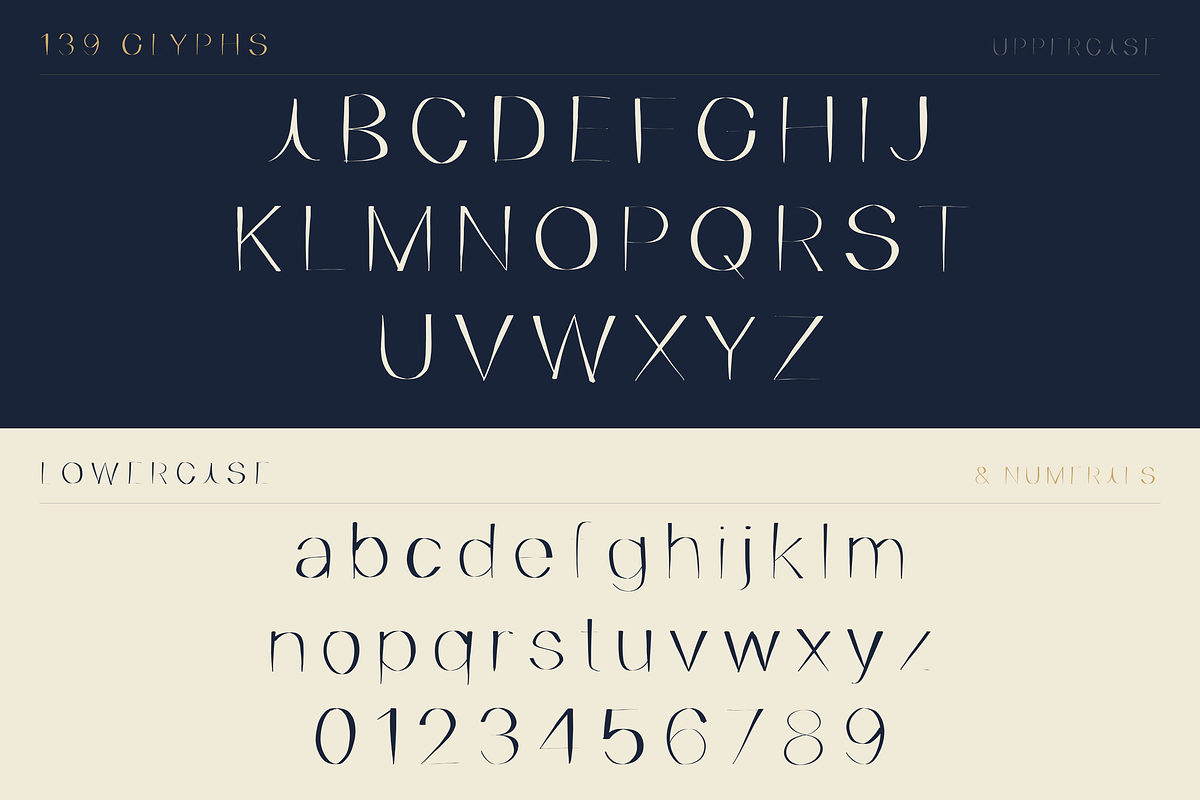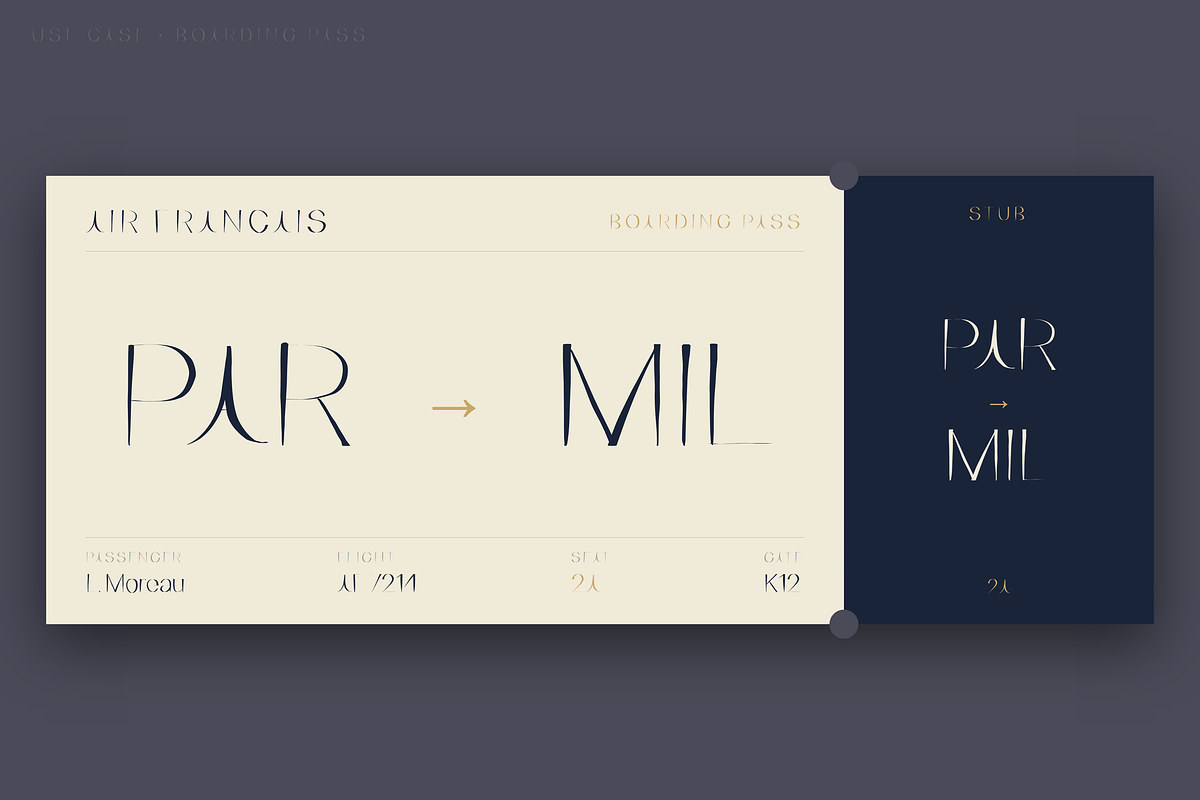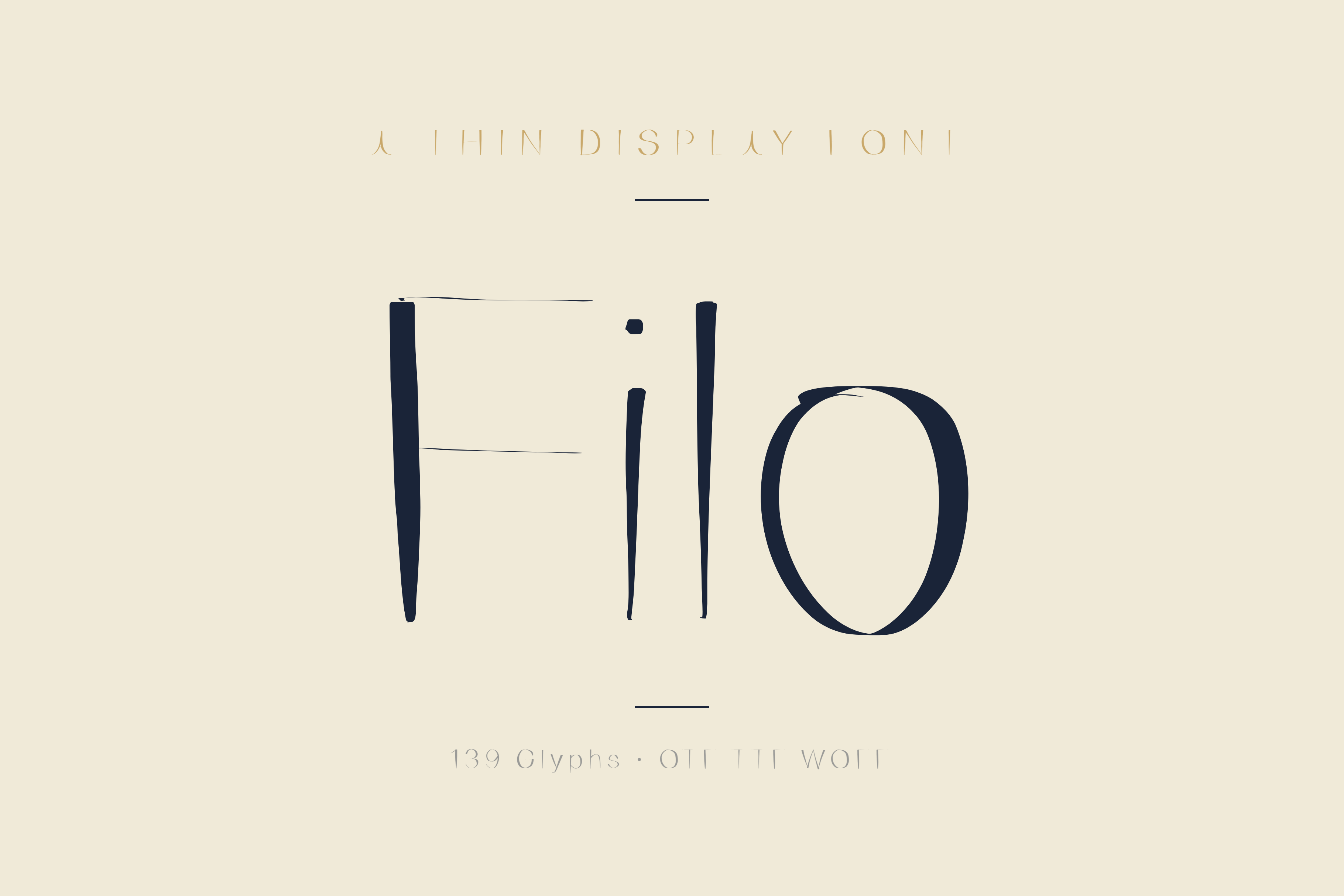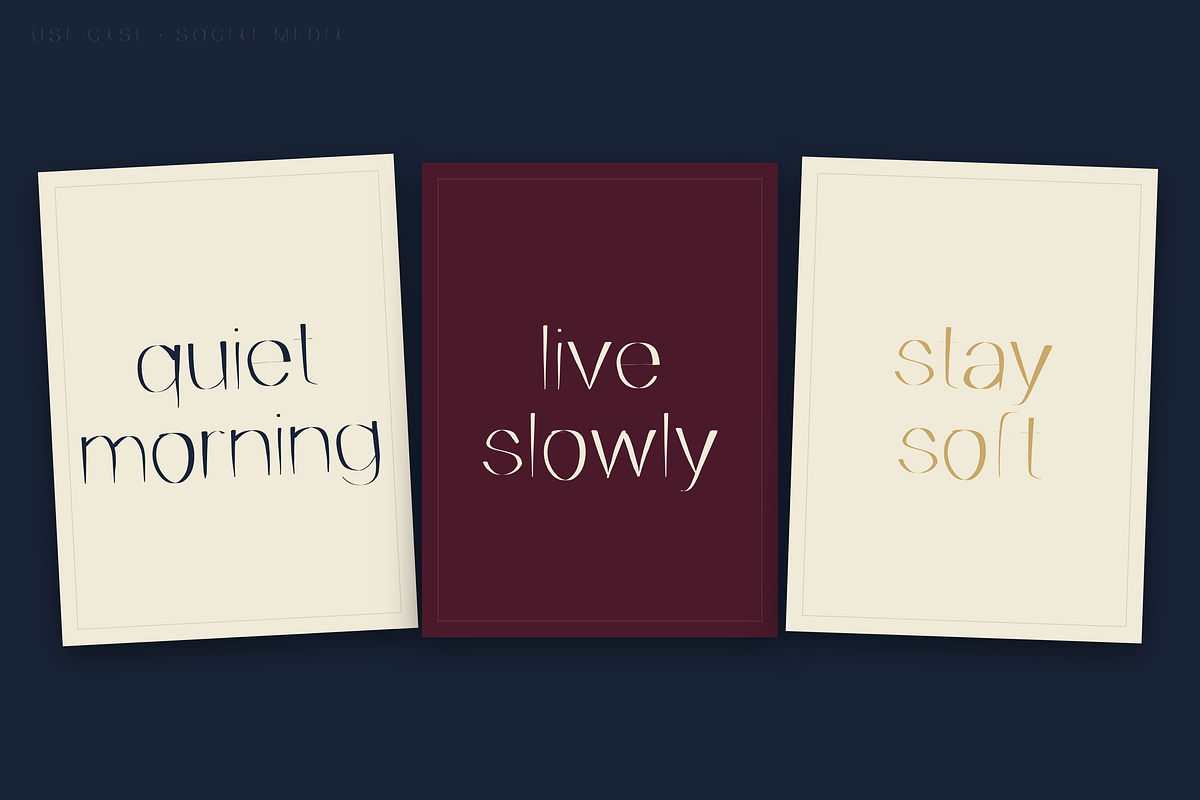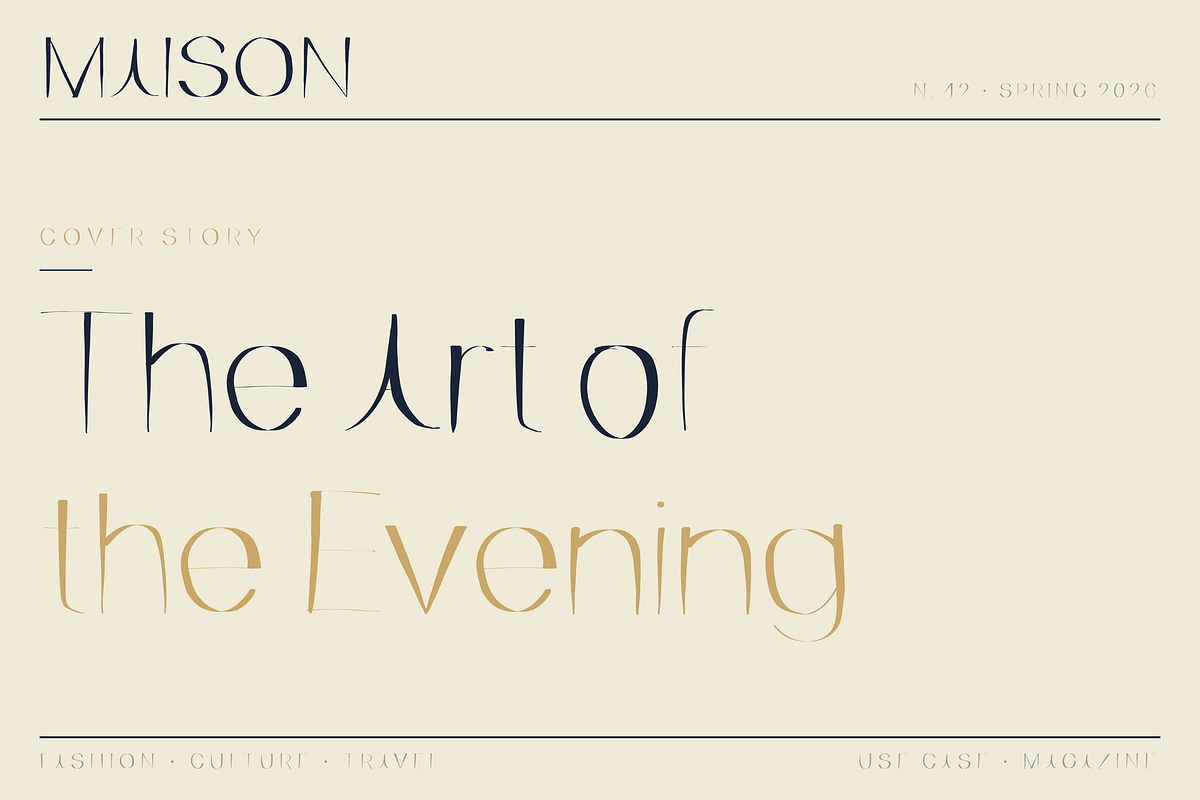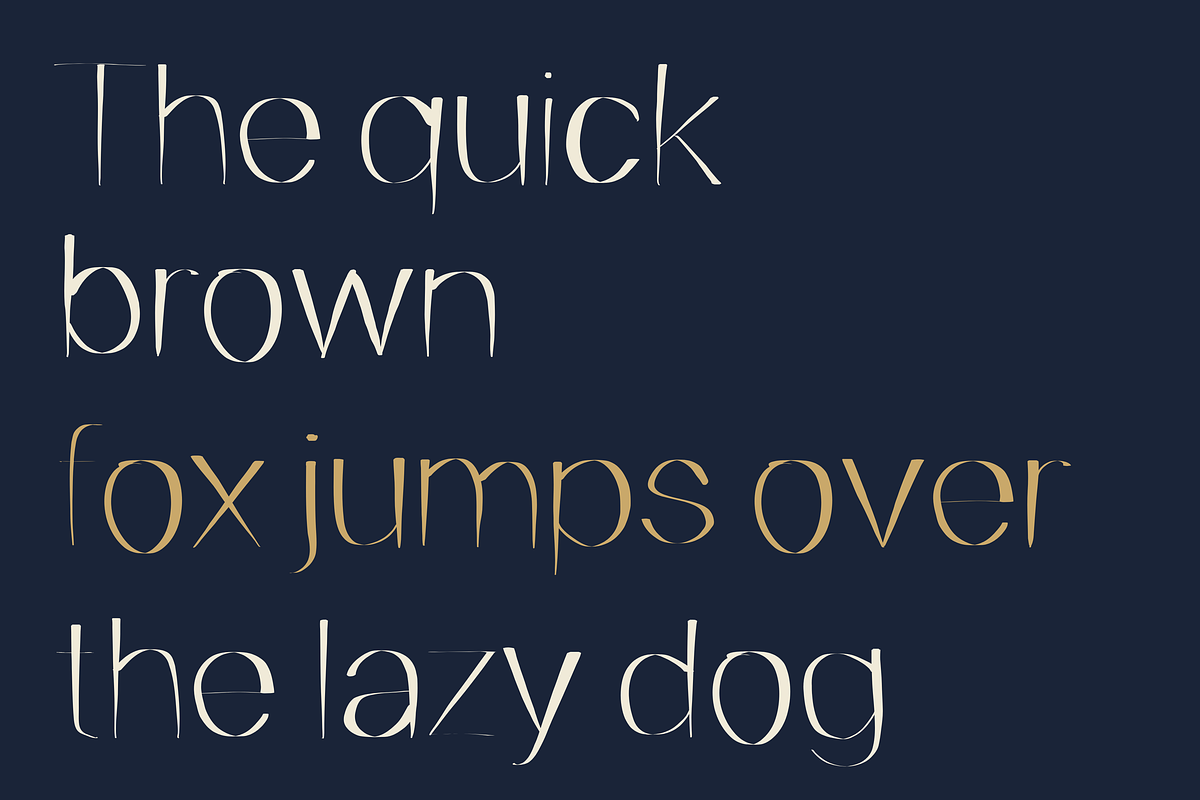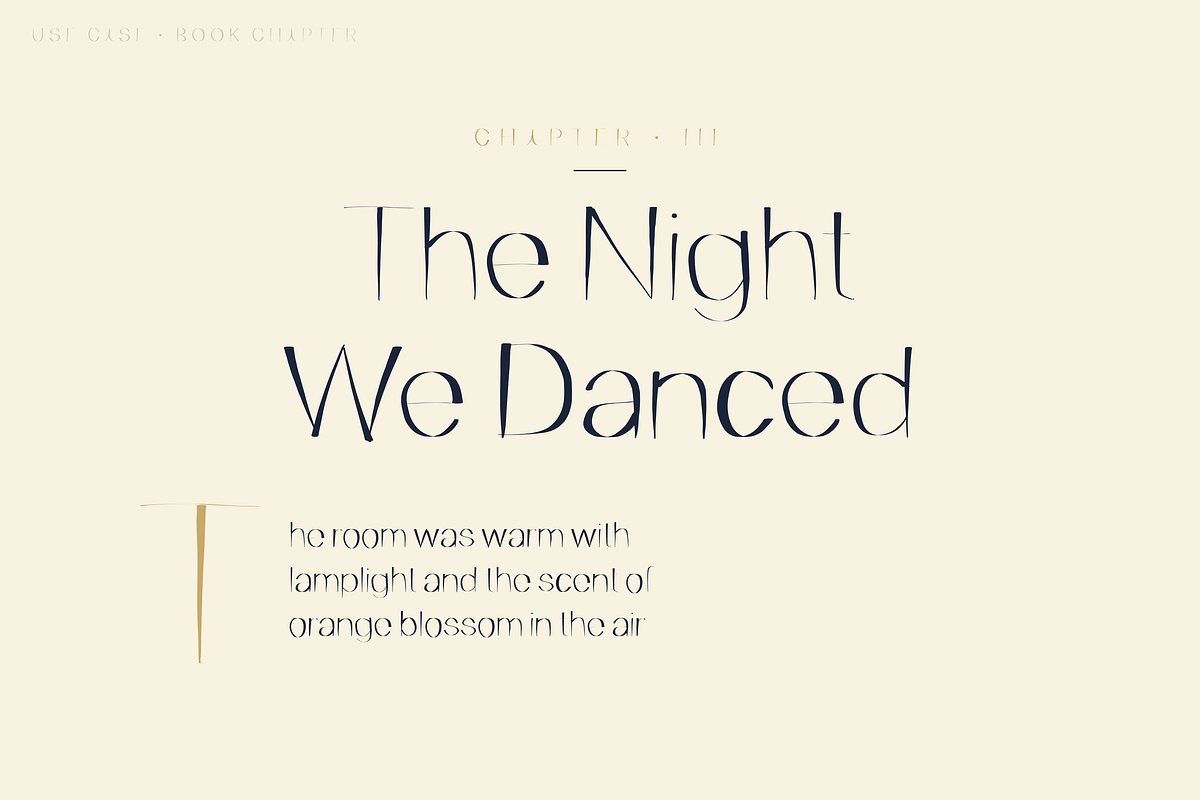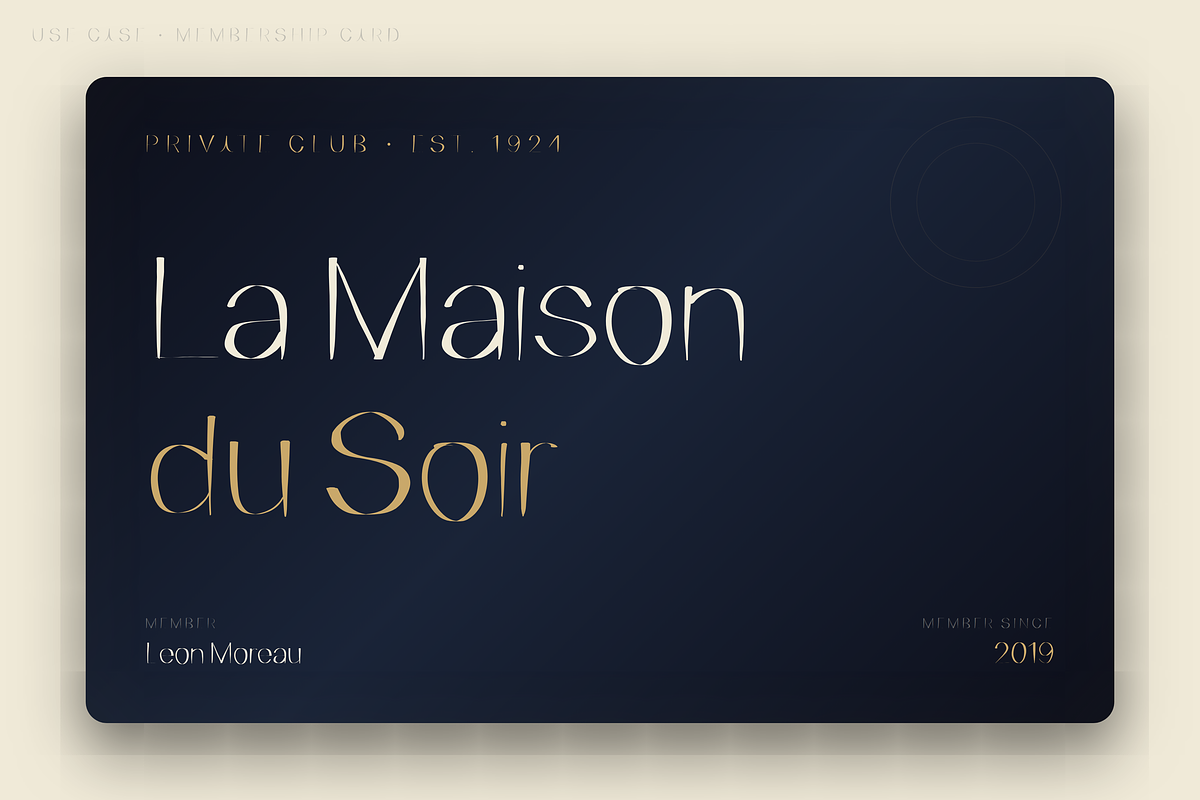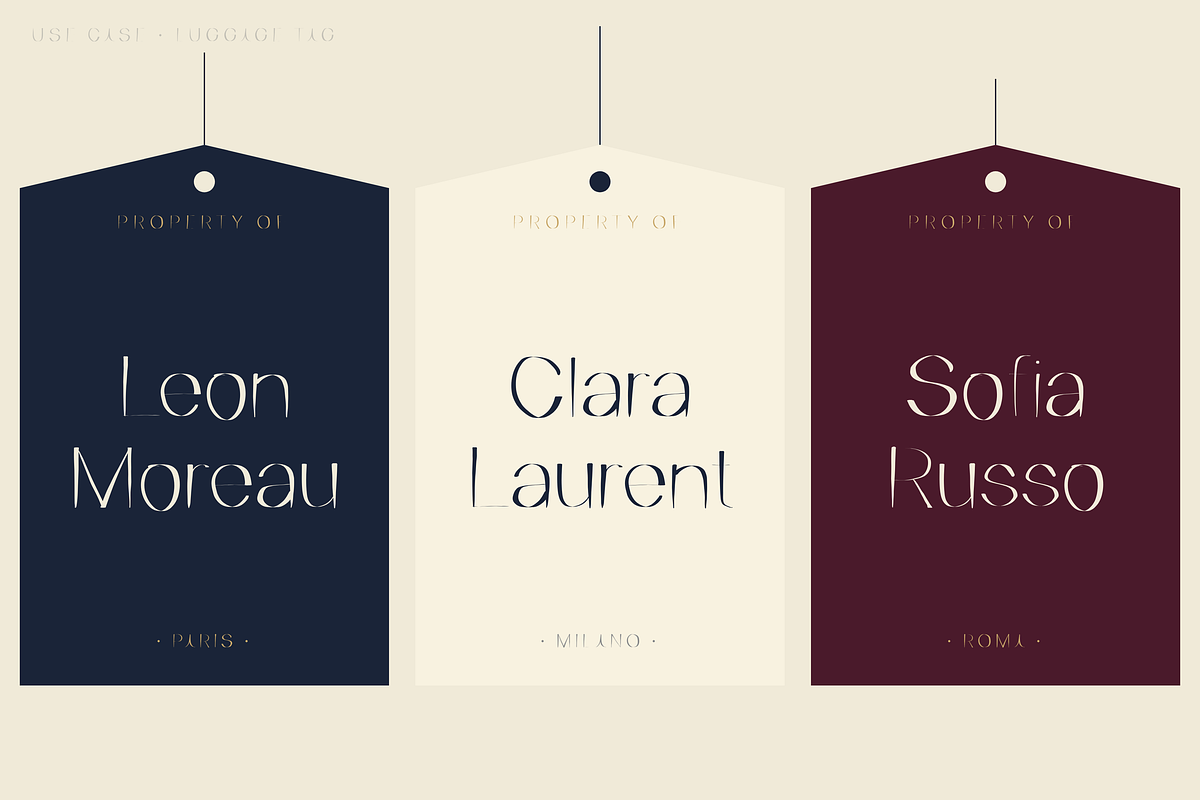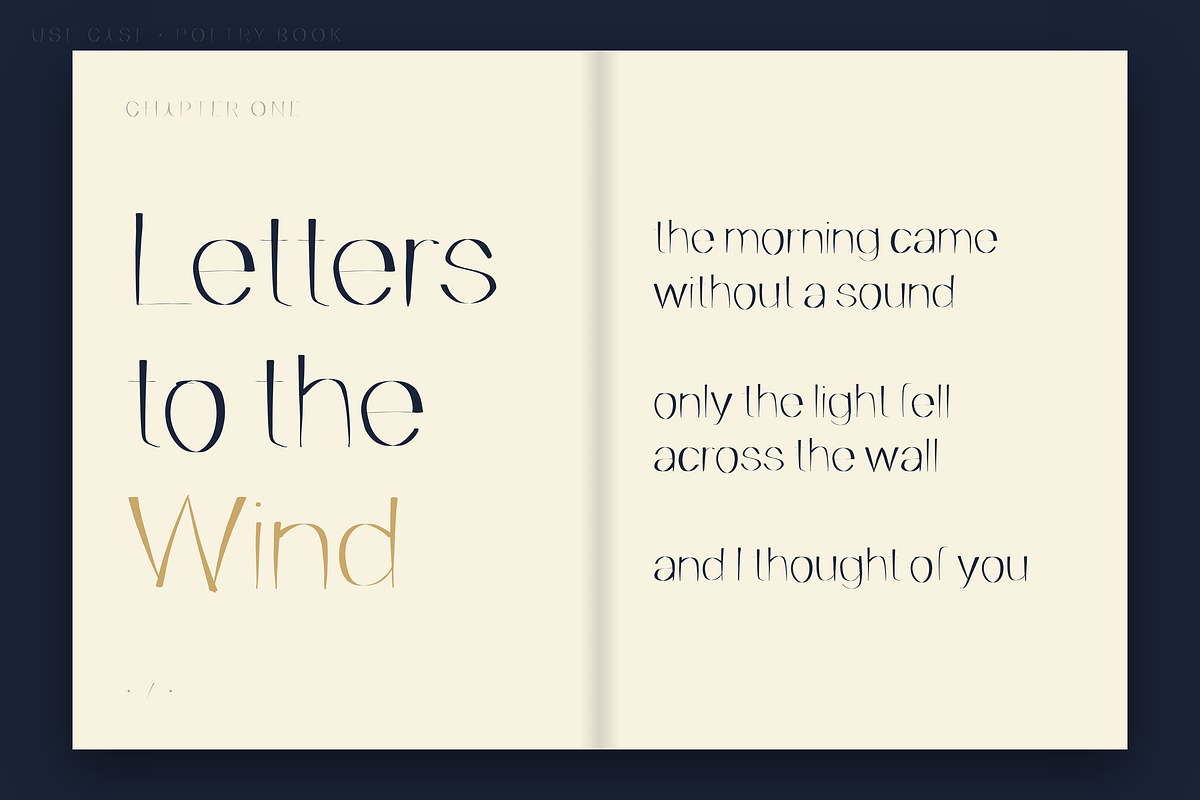
Filo — Thin Display Font
Introducing Filo — a thin condensed display font with delicate brush texture and impossibly elegant proportions. Every letter is tall, slender, and quietly imperfect — the kind of imperfection that costs more, not less. It's the typeface for brands that whisper instead of shout.
Filo takes its name from the Italian word for "thread." That's exactly what each letter feels like — a single thin thread of ink, drawn with confidence and a steady hand.
PERFECT FOR:
- Fashion brands & couture houses
- Editorial magazines & lookbooks
- Perfume & cosmetics packaging
- Art gallery & exhibition posters
- Boutique hotels & private clubs
- Luxury invitations & stationery
- Wine & champagne labels
- Boarding passes & travel branding
- Poetry books & literary covers
- Wedding suites & save the dates
- Logo design & monograms
- Membership cards & VIP collateral
- Social media for high-end brands
- Museum & cultural institutions
WHY FILO? Most thin display fonts are either too clean (sterile) or too decorative (gimmicky). Filo lives in the in-between — thin enough to feel elegant, organic enough to feel alive. The subtle brush imperfections give each letter a quiet personality you don't get from a vector-perfect typeface. It's the font for brands that understand restraint is its own kind of luxury. One typeface, infinite refinement.